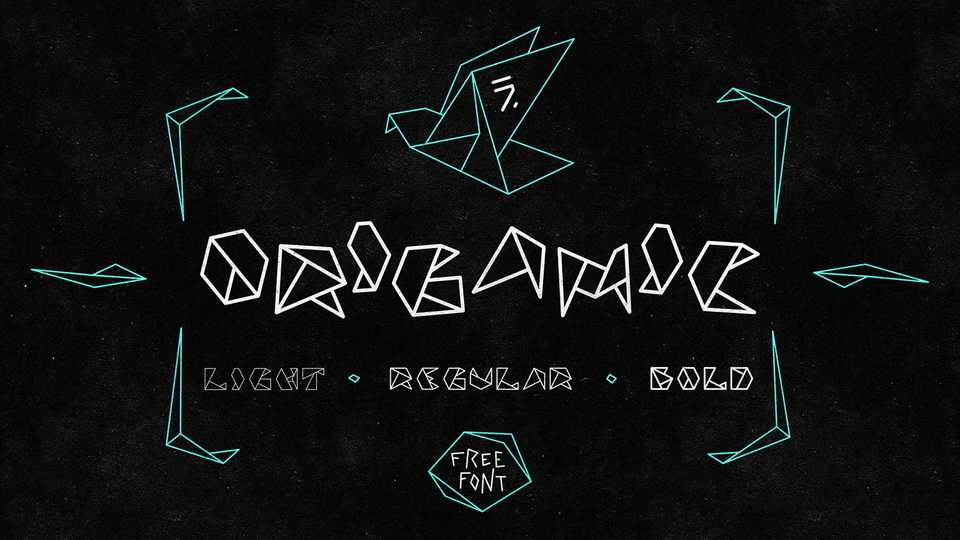
Download Origamic typeface, an outlined decorative display font family in 3 weights inspired by Origami. Origamic font is perfect for posters, covers, branding and other authentic artworks.